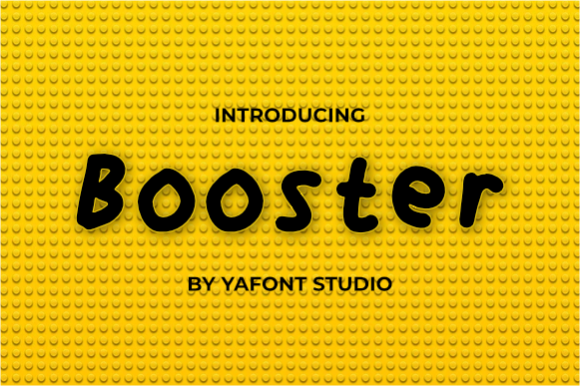
Booster Font
About Booster Font
Booster is a modern and cute looking handwritten font. Friendly and casual, this font will be the ideal choice for a wide range of designs.